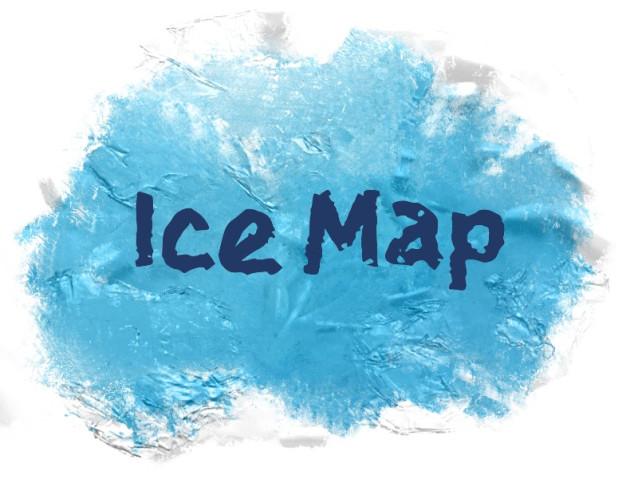
Ice Map Font
Ice Map Font is a simple and modern display font suitable for quotes, logos, headings, titles, and many more. Use it on any of your creative projects, and your designs will become outstanding!